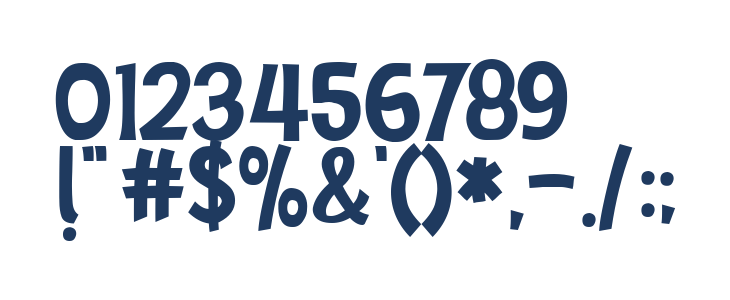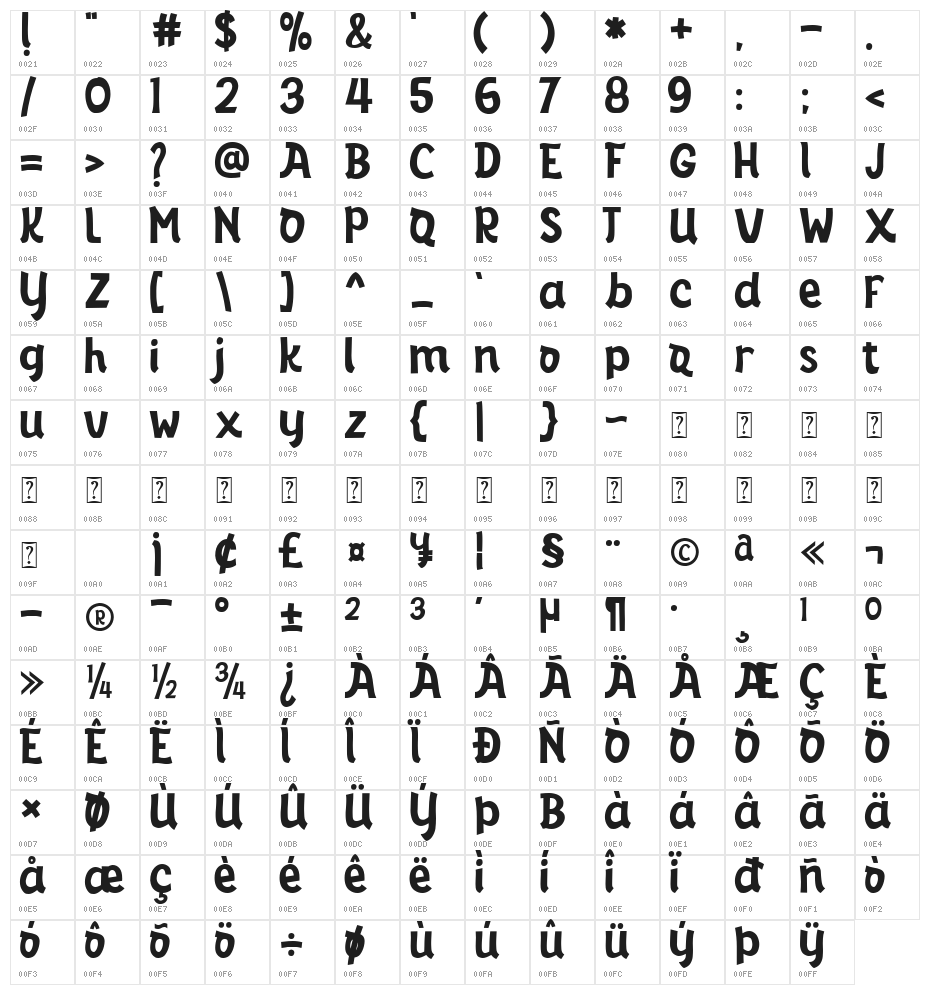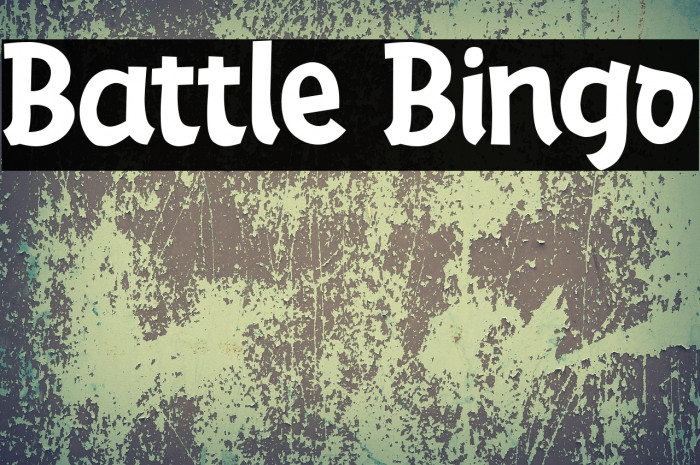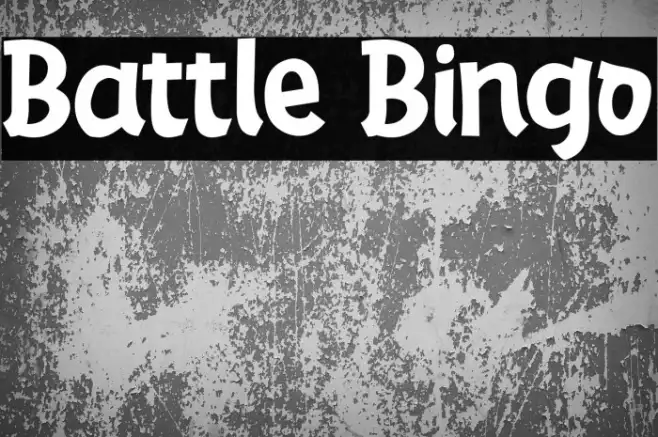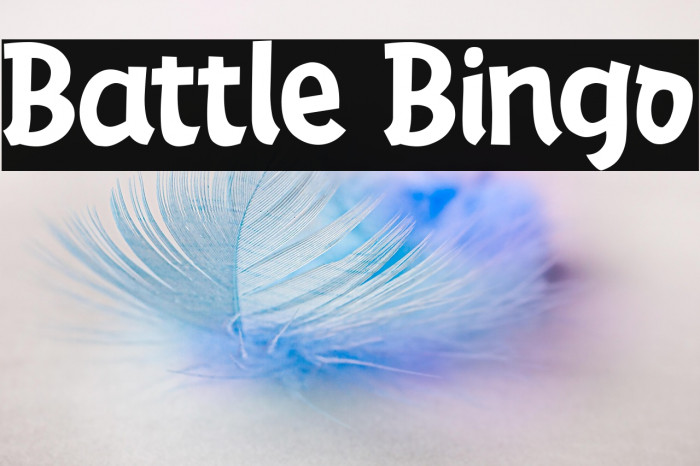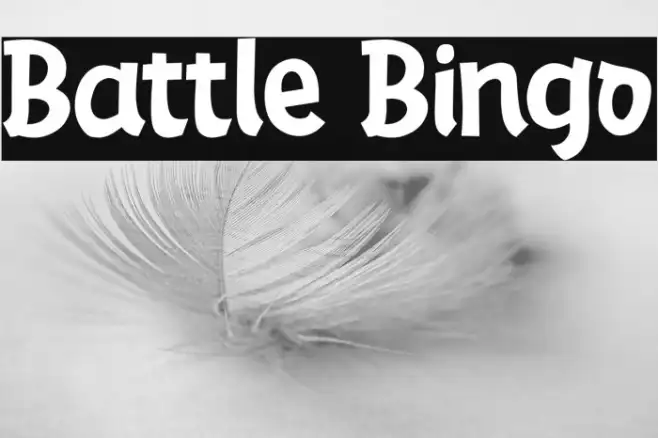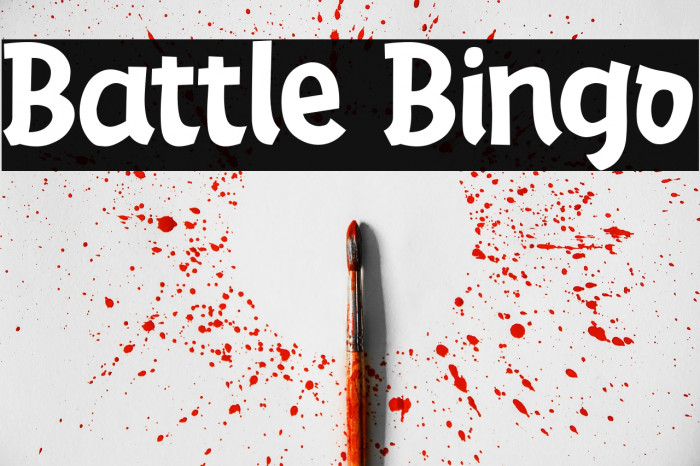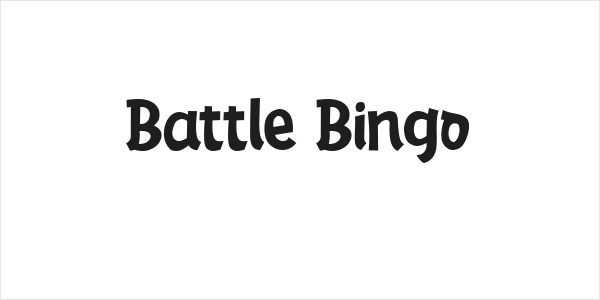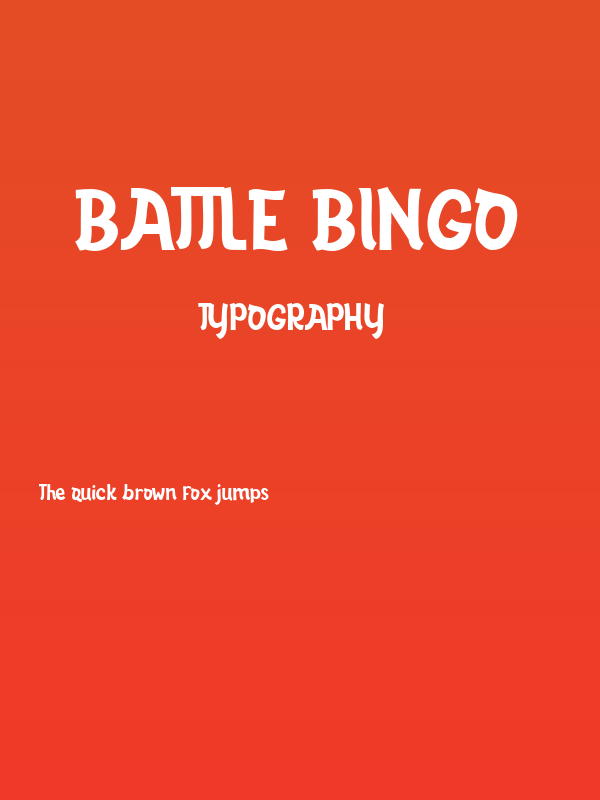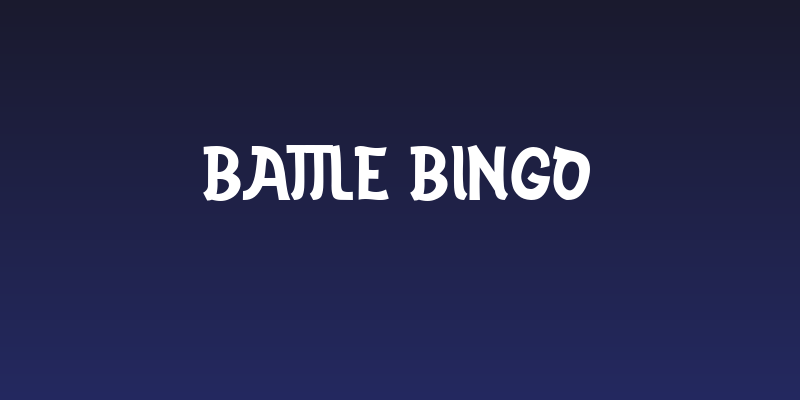
Battle Bingo Font
Battle Bingo Description
This font features a playful and bold style with a slightly irregular and hand-drawn appearance. The characters are thick and rounded, giving them a friendly and approachable feel. The uppercase and lowercase letters maintain a consistent weight, while the numbers and special characters complement the overall design. The strokes are smooth and uniform, contributing to a cohesive look. This font is well-suited for projects that require a fun and informal touch, such as children's books, posters, or playful branding materials.
Overall StylePlayful, Informal
Proposed ProjectsIdeal for children's books, playful branding, posters, and informal designs.